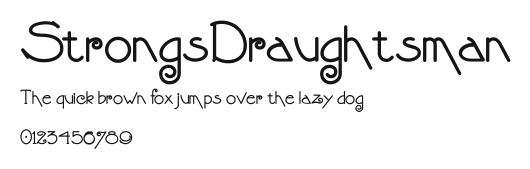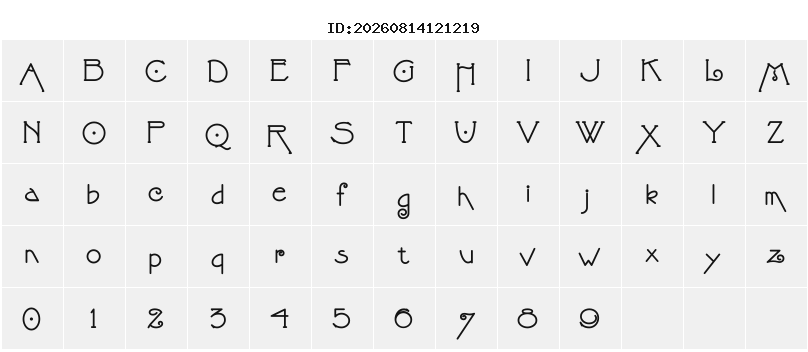
• Font Name: StrongsDraughtsman
• Font Style: DemiBold
• Font ID: Nick'sFonts: StrongsDraughtsman DemiBold: 2003
• Full Font Name: StrongsDraughtsman DemiBold
• Version: Version 1.00 2003 initial release
• PostScript Name: StrongsDraughtsman-DemiBold
• Designer: Nick Curtis
• Manufacturer: Nick's Fonts
About StrongsDraughtsman.ttf
StrongsDraughtsman.ttf is a modern, elegant sans-serif font designed for ultimate readability and visual harmony. Perfect for branding, headlines, web design, and print materials.